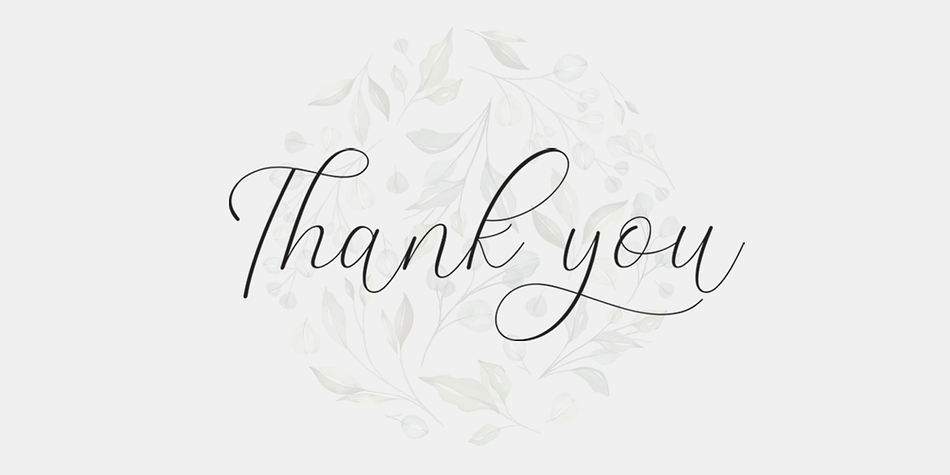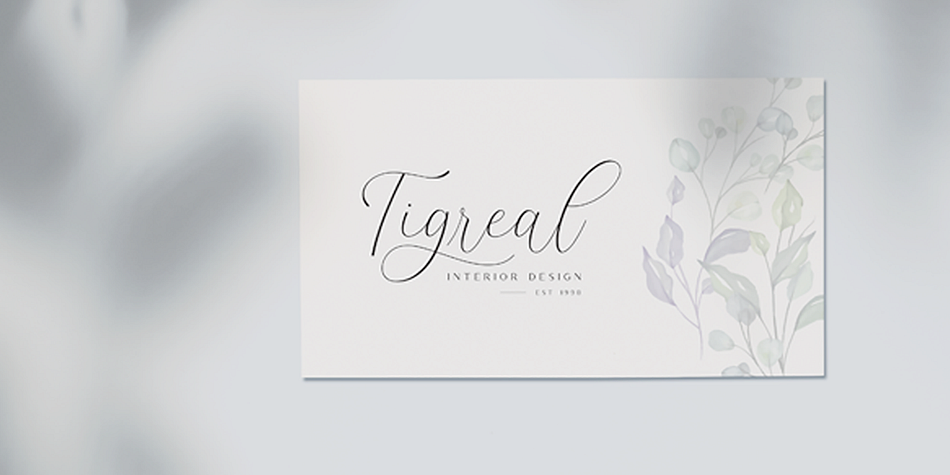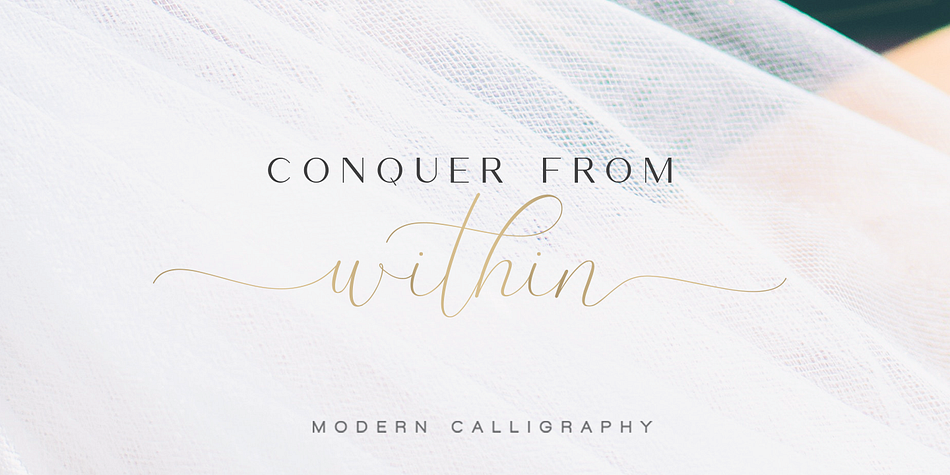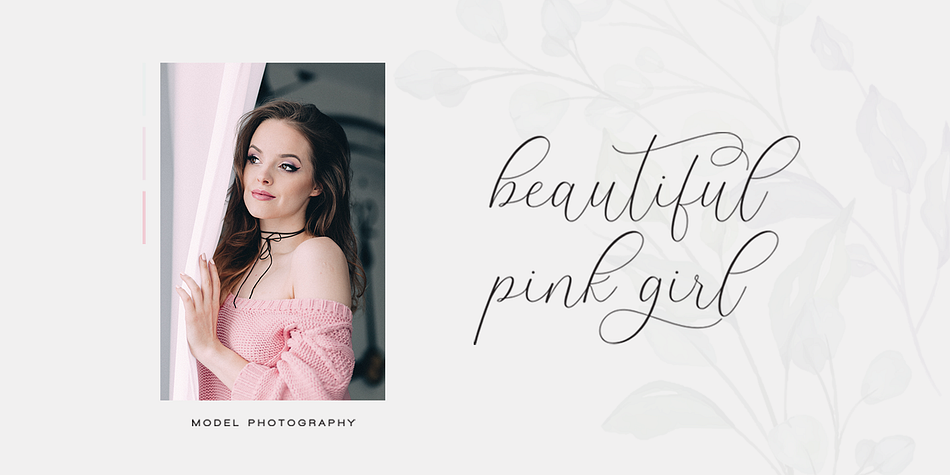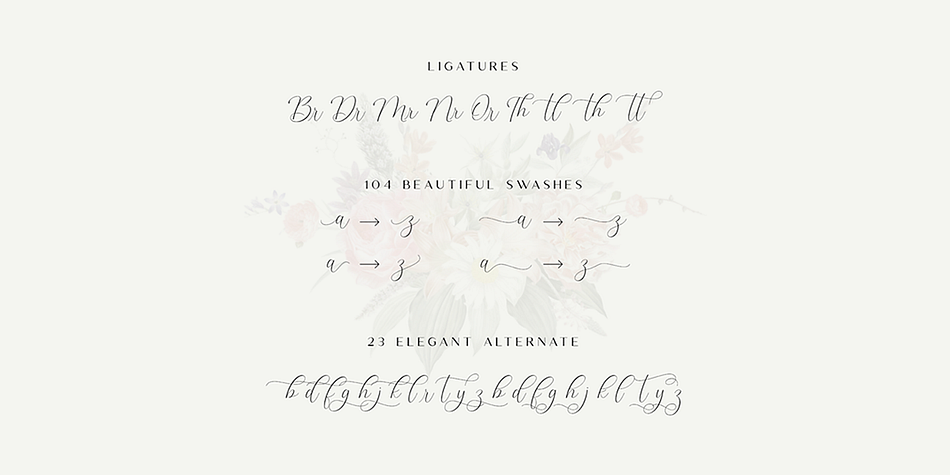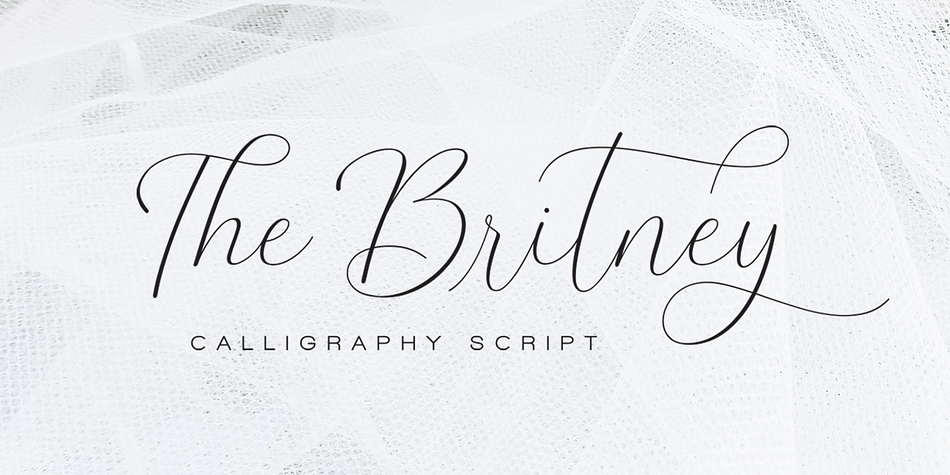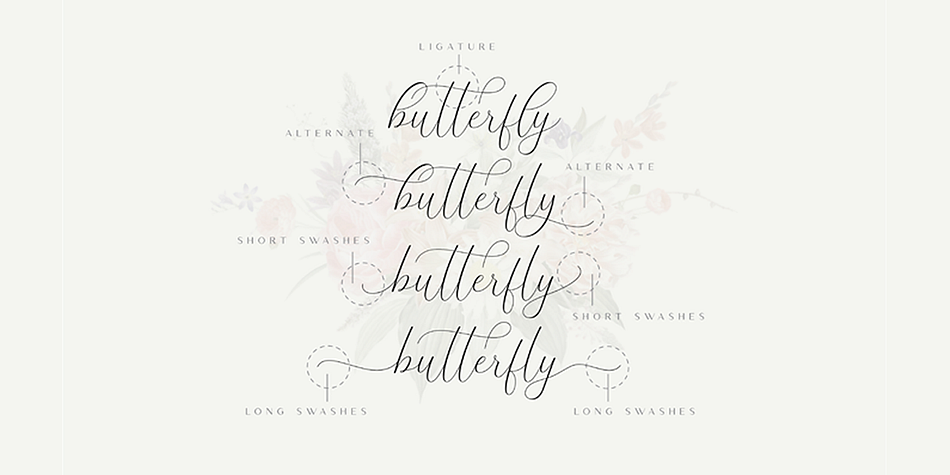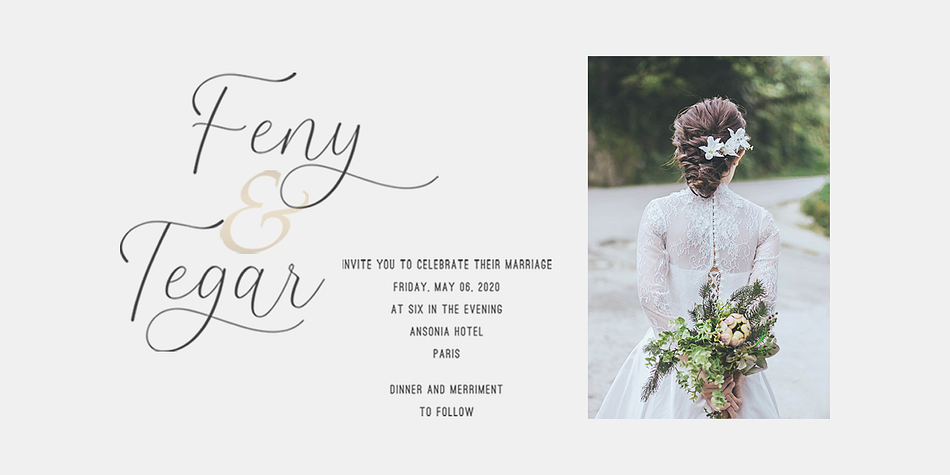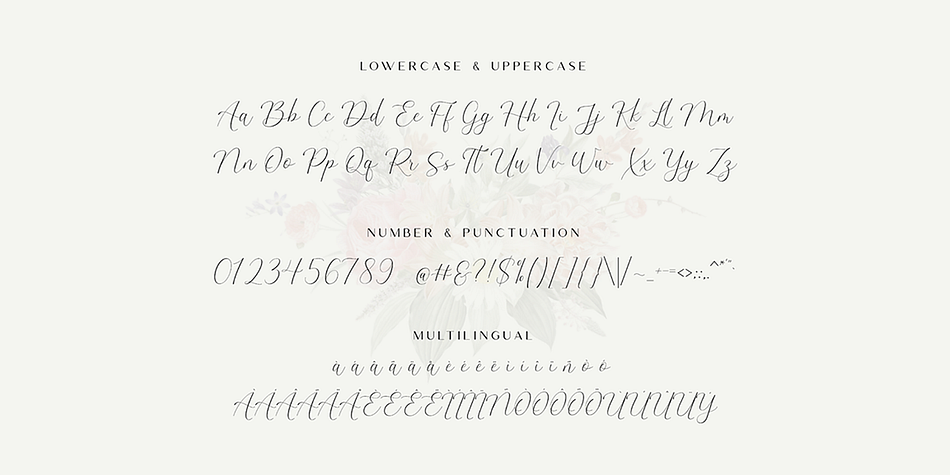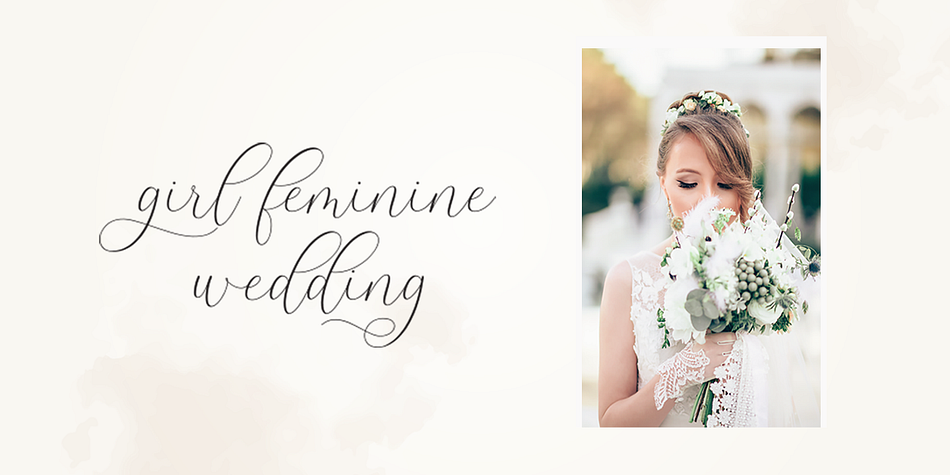
Effort is a modern calligraphy, script and dingbat font family. This typeface has two styles and was published by Dharmas Studio.
Introducing the new lovely font, Effort Calligraphy Font!
Effort is a modern calligraphy font with handwritten, modern, sophisticated flows. It is perfect for branding, wedding invites and cards.
For those of you who are needing a touch of elegance and modernity for your designs, this font was created for you:)
Effort was built with OpenType features, alternatif, ligatures, punctuation, number, and it also supports other languages:)